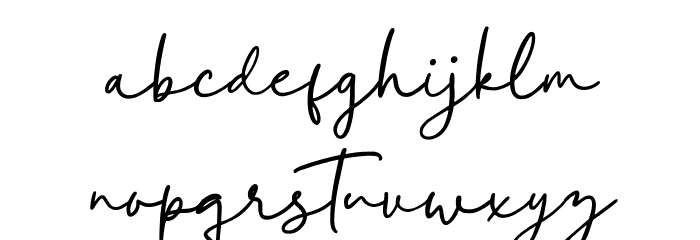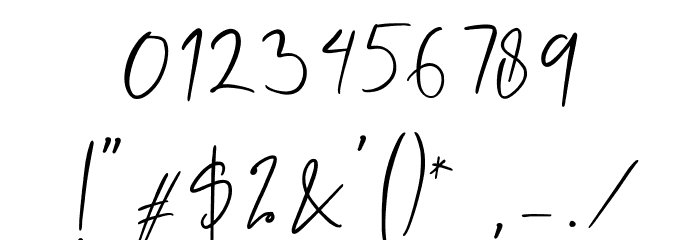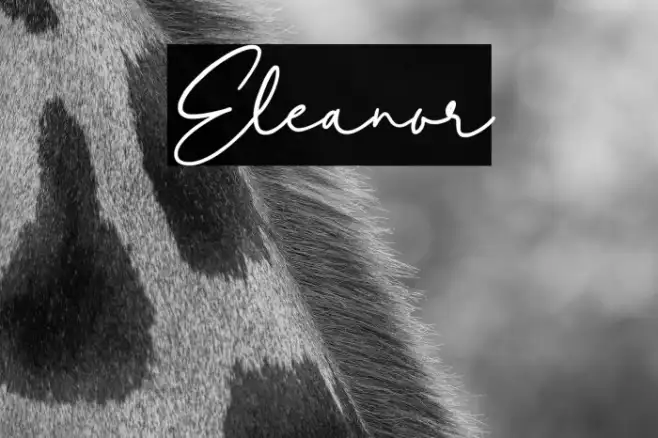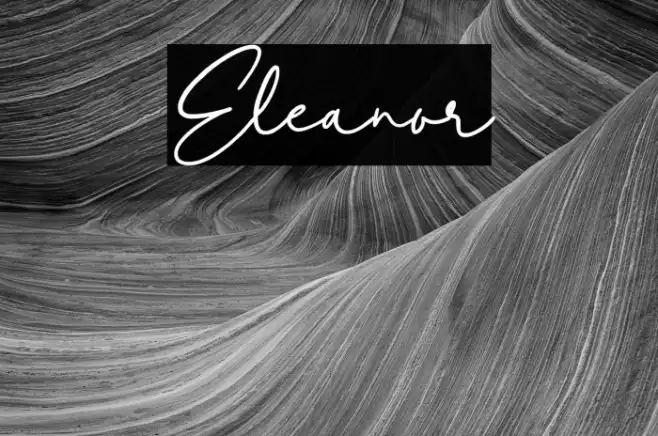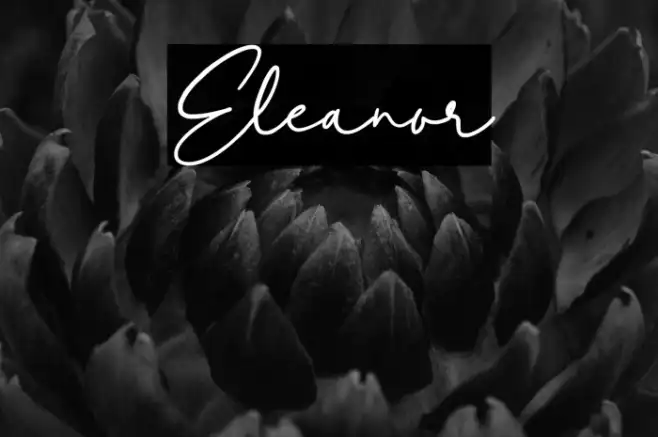
Eleanor Font
This font features a lively and expressive handwritten style, characterized by its fluid and dynamic strokes. The uppercase letters are tall and slightly narrow, with a playful loop in letters like 'B', 'P', and 'R'. The lowercase letters maintain a consistent flow, with some letters like 'g' and 'y' having elegant descenders. The numerals are clear and distinct, matching the overall handwritten aesthetic. Special characters are integrated seamlessly, maintaining the font's cohesive look. This font exudes a sense of personality and charm, making it ideal for projects that require a personal touch.
A lively and expressive handwritten font with fluid strokes and playful loops.